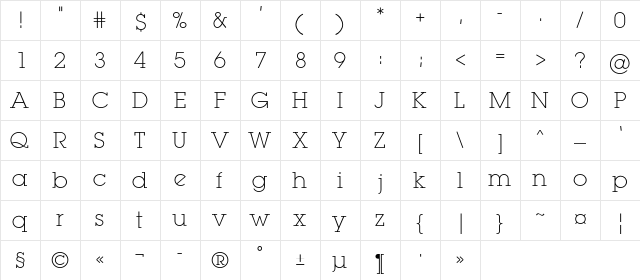
LugaExtra Regular
Design Context for LugaExtra Typeface
LugaExtra is a composed and adaptable typeface that performs quietly and consistently across a wide range of design contexts.
Pro Tip: Pair LugaExtra with a font of contrasting weight or personality to build a more expressive typographic hierarchy.